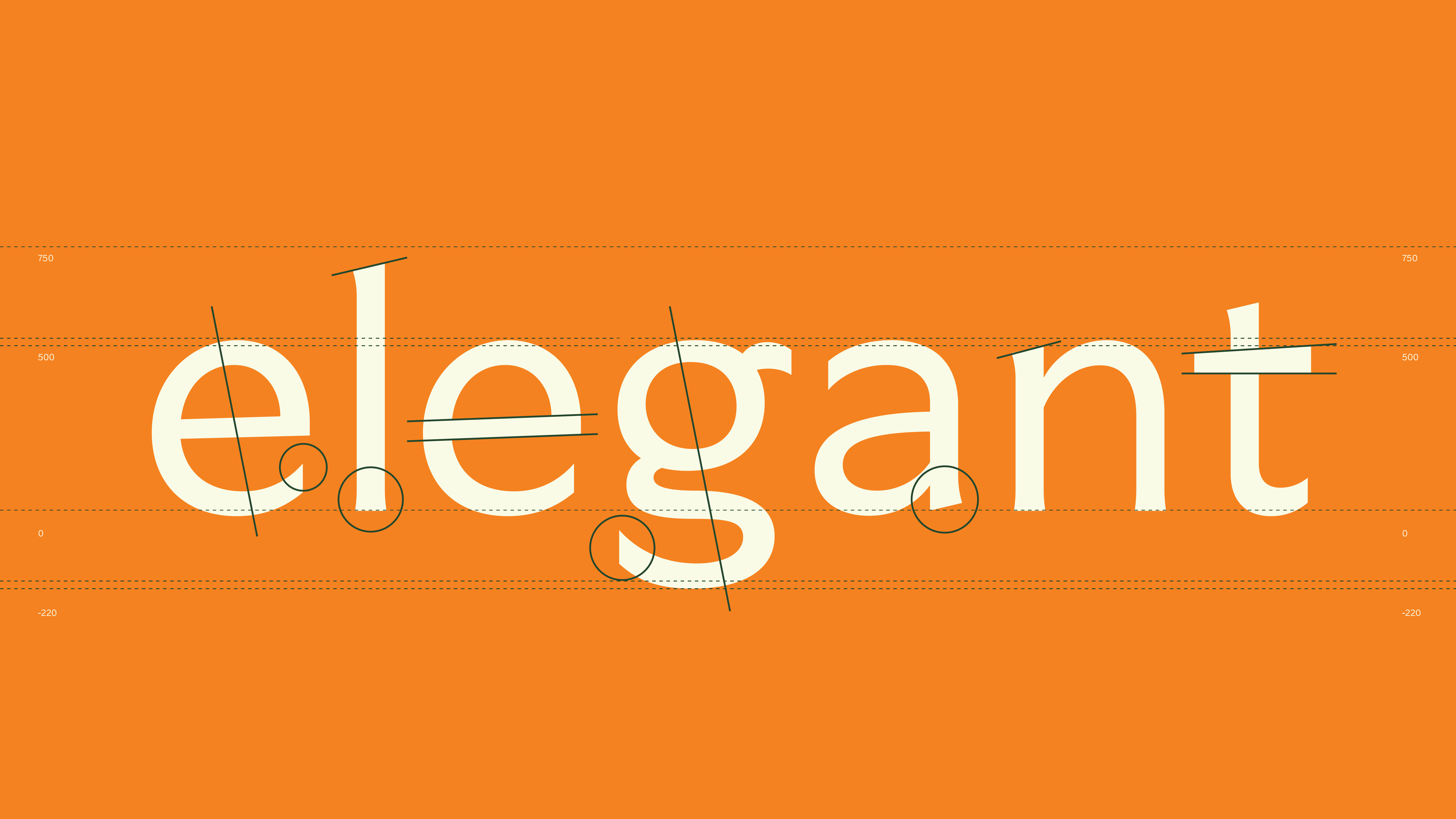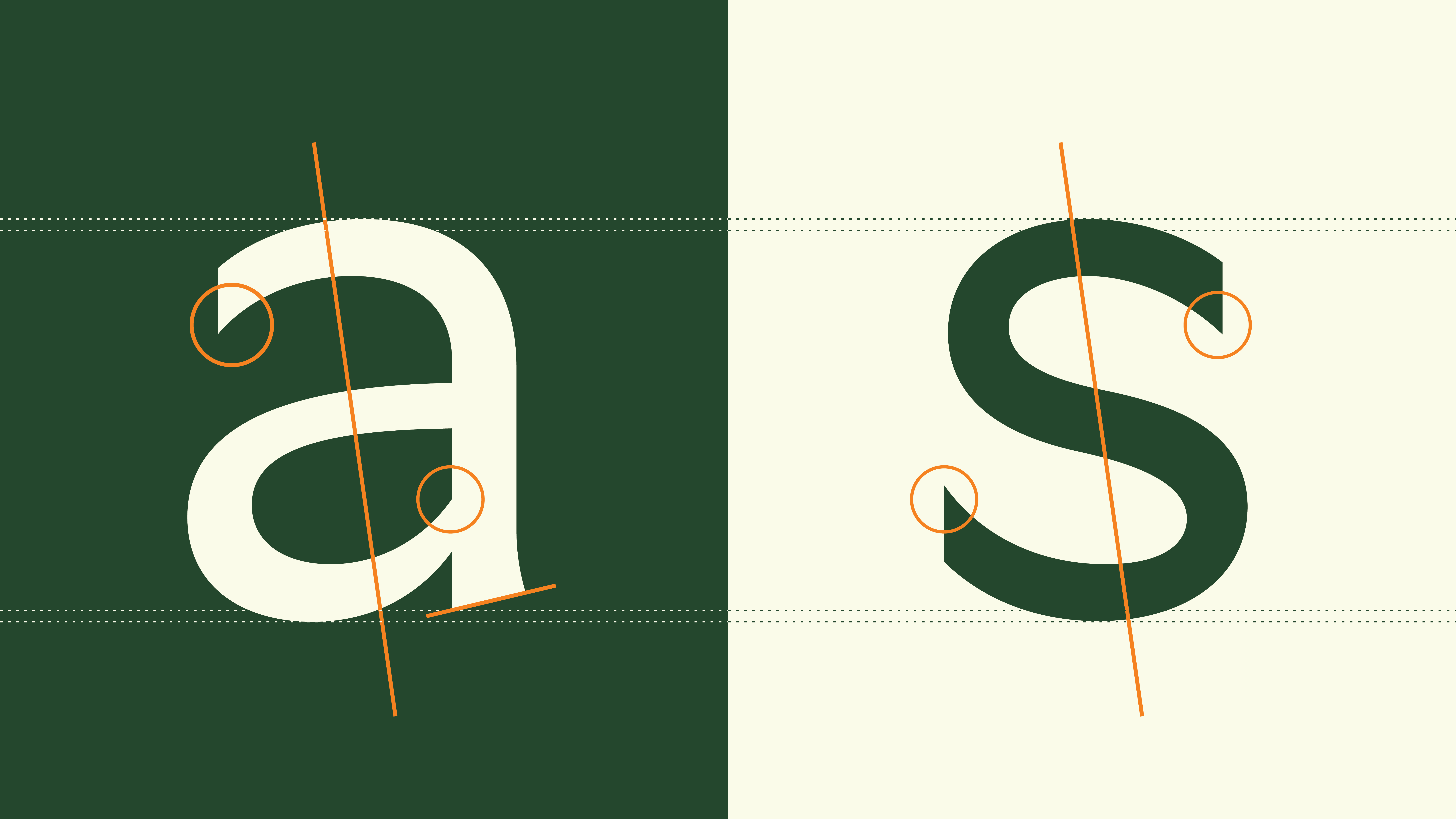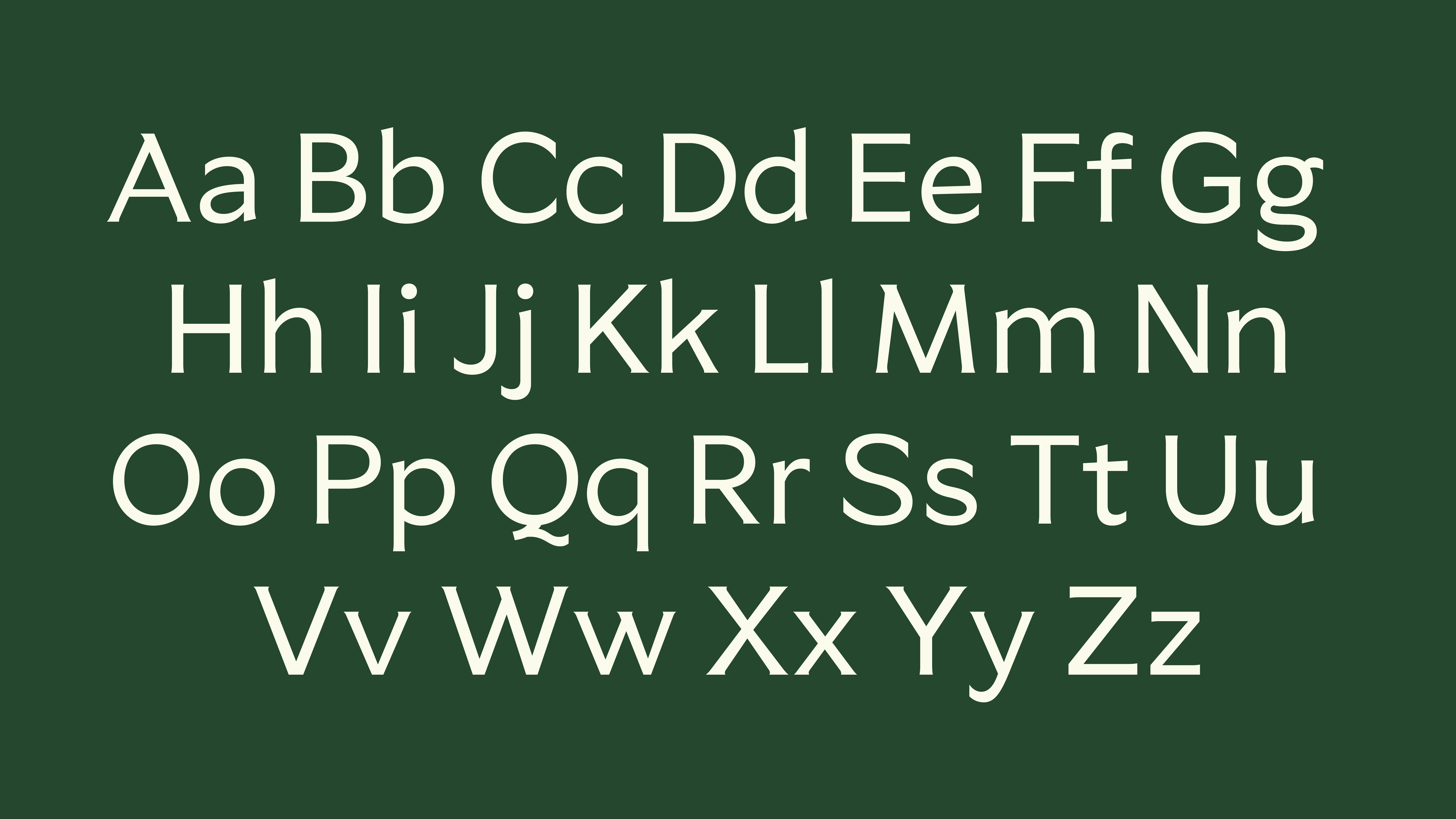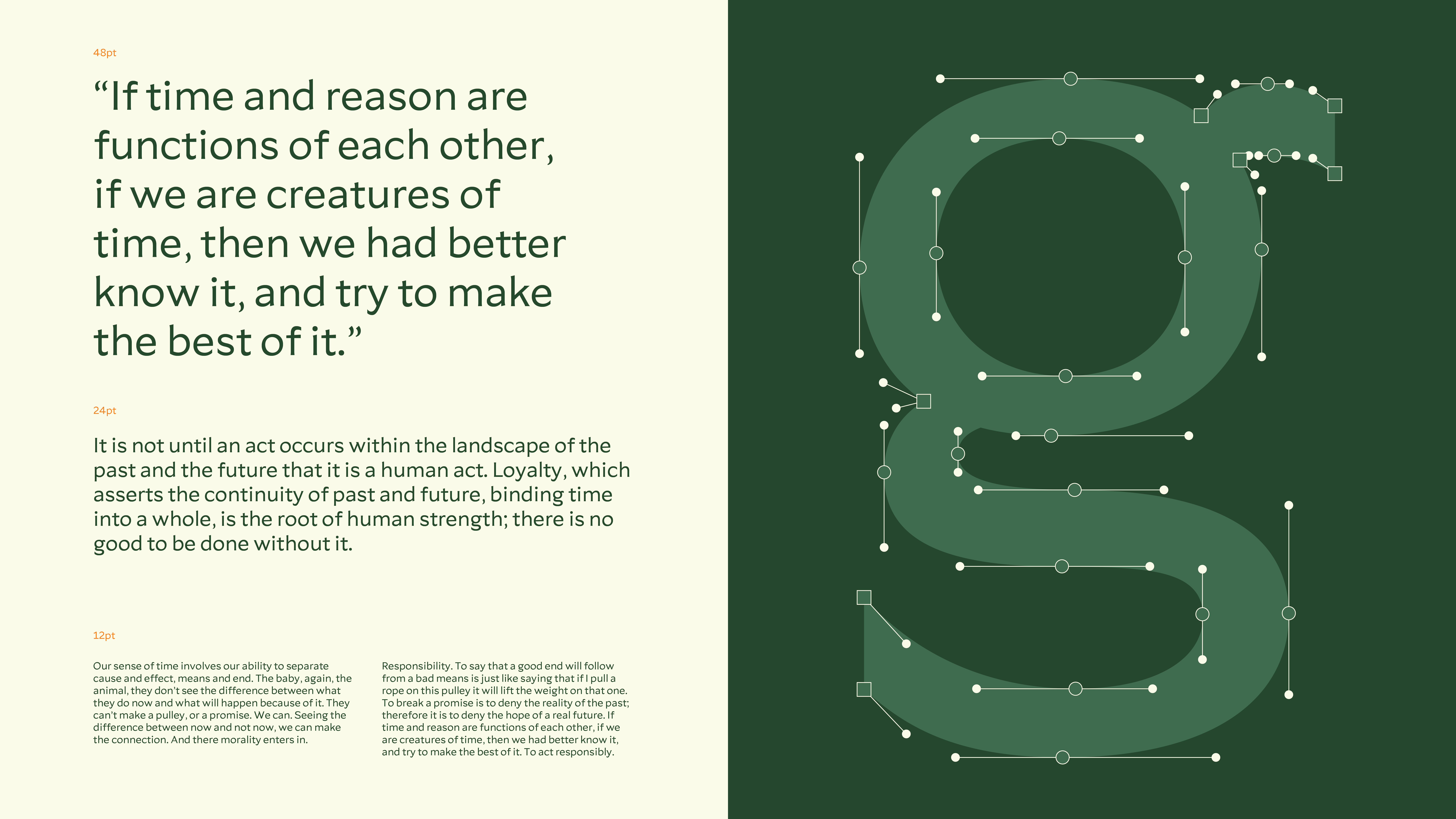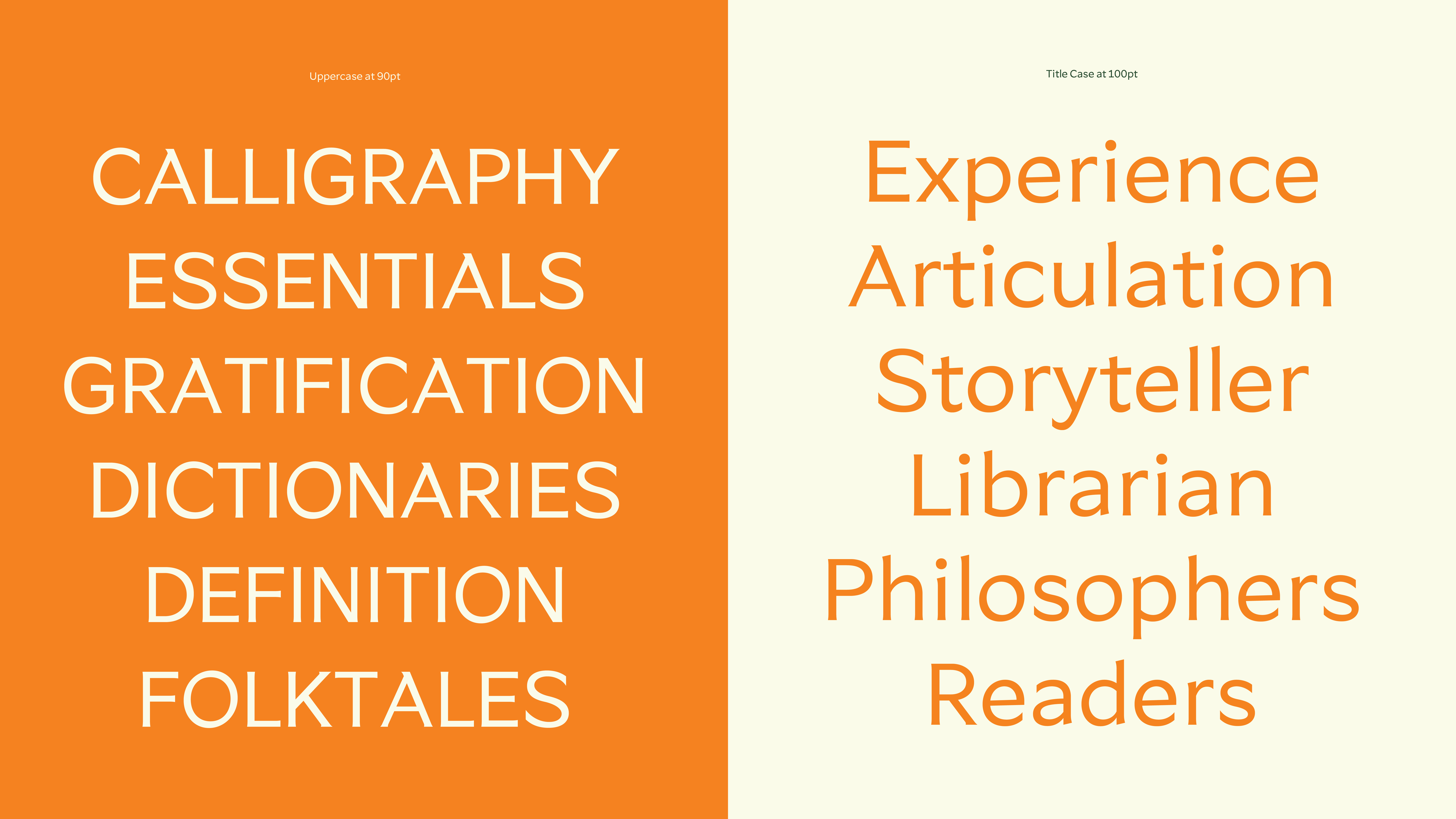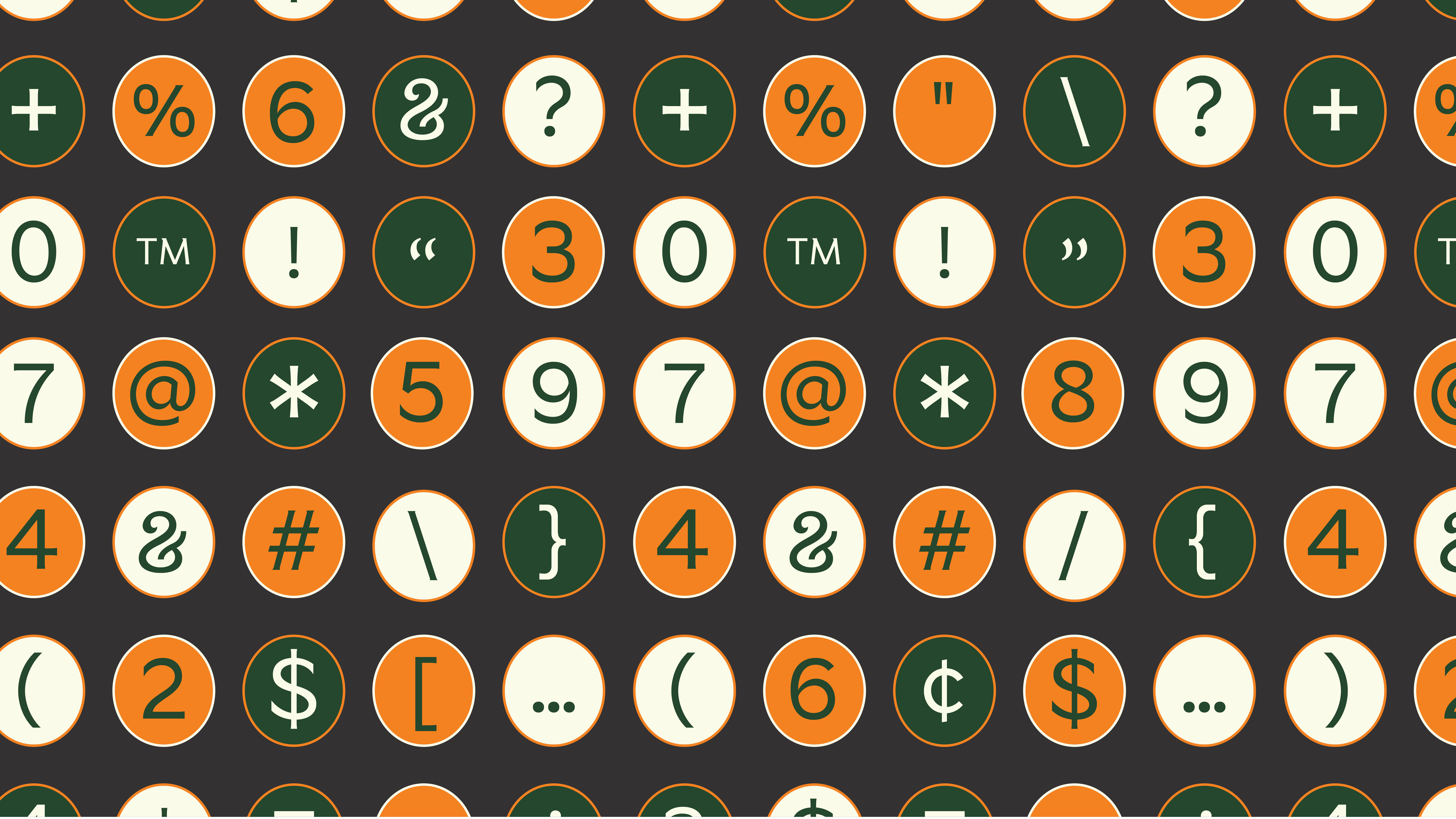
Atheneum Sans Typeface
Atheneum Sans is a translational typeface that conveys humanist and semi-calligraphic forms. It has a delicate charm, noticeable at large scales (48pt+). The design was inspired by classic literature and transitions between broad nib pen construction and modern sans serif. Atheneum Sans is ideal for legible print and editorial use, especially for small-sized texts in books, invitations, and brochures.